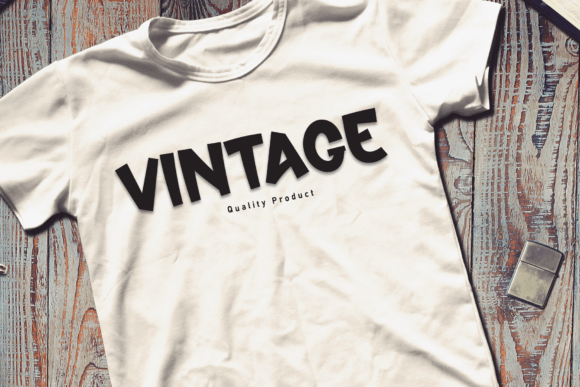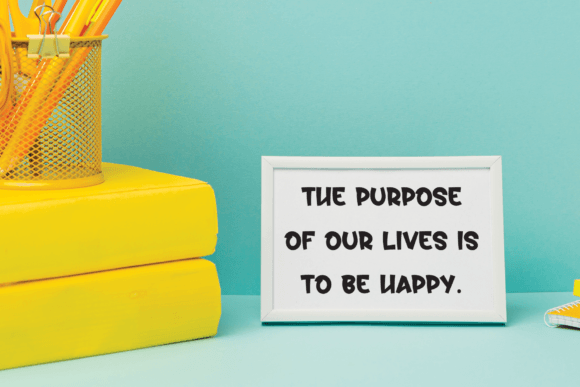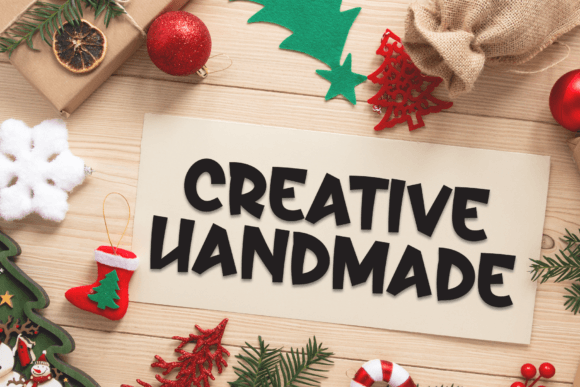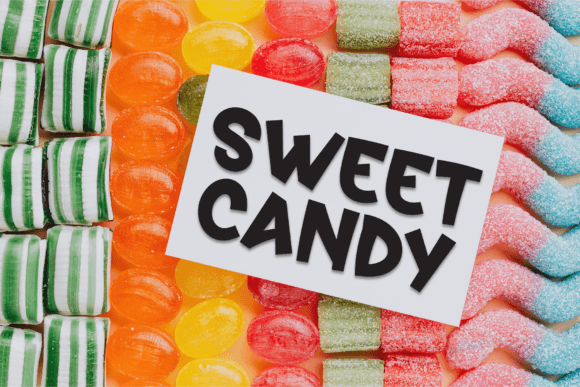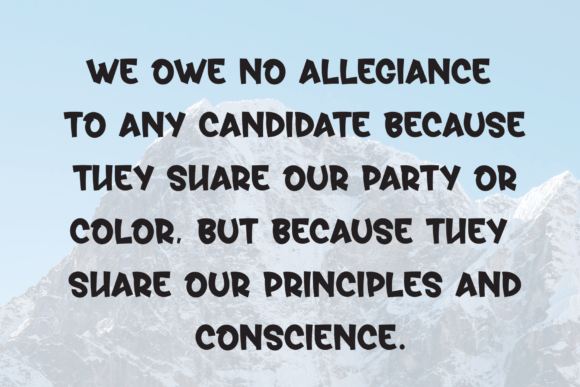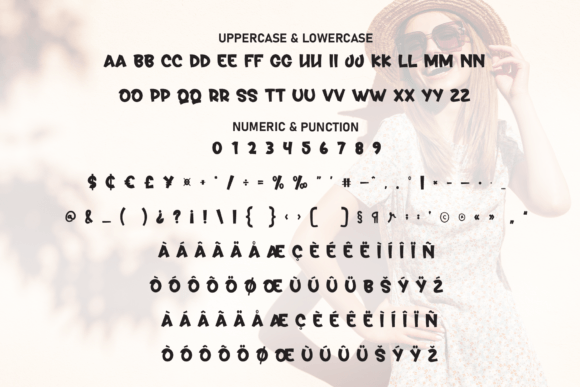
Introduction to People Pleaser Font
Have you ever stared at a blank canvas, eager to bring a creative project to life, only to find yourself struggling to find the perfect font to set the tone? I know I have. That’s why I’m thrilled to introduce you to the People Pleaser Font – a delightful handwritten display font that’s sure to add a touch of warmth and personality to any design.
As a designer, you’re constantly on the lookout for that special something to elevate your work and make it truly stand out. The People Pleaser Font is a valuable addition to any design resource, offering a unique blend of sweetness and friendliness that’s perfect for a wide range of applications, from wedding invitations to heartfelt cards.
Key Features of People Pleaser Font
- High-quality, professional design suitable for various creative projects, including logos, branding, and marketing materials.
- Comes in a range of sizes, from 12 to 72 points, making it suitable for various design applications, from small text to large headings.
- Unique, modern design aesthetic that sets it apart from other fonts, making it a great choice for designers looking to add a touch of sophistication to their creative project.
Honest Review: People Pleaser Font
I recently had the chance to try out the People Pleaser Font, and I must say it’s been a game-changer for my creative projects. The design is clean, modern, and incredibly versatile, making it perfect for a wide range of uses.
What I love most about this font is its ability to adapt to different styles and themes. Whether I’m working on a minimalist design or something more playful, the People Pleaser Font always looks great. ✨ I’ve found it particularly useful for creating engaging social media graphics and promotional materials for my clients.
My only criticism would be that the font is not suitable for use in certain situations, such as for body text in long-form content. ⚠️ At larger font sizes, it can start to look a bit cluttered and difficult to read. However, for headings and titles, it’s perfect.
Overall, I’m thoroughly impressed with the People Pleaser Font, and I highly recommend it to any designers looking for a reliable and versatile design resource.
- High-quality design that adapts well to different styles and themes
- Not suitable for body text in long-form content
The People Pleaser Font is a versatile design resource that can elevate your creative project with its unique and elegant style. This high-quality font is available for free download and features a transparent background, making it perfect for various design applications.
To get the most out of the People Pleaser Font, use it in combination with other design elements, such as images and graphics, to create a visually appealing design. You can also experiment with different font sizes and styles to add depth and interest to your design.